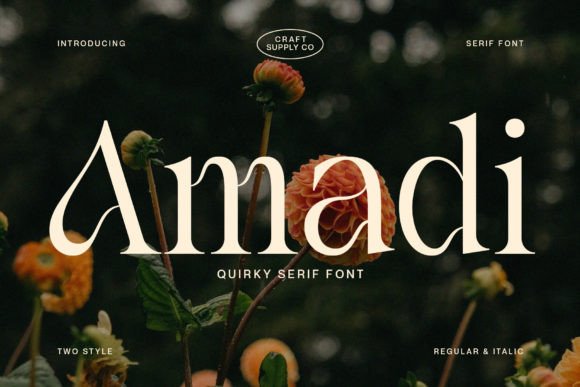
Introducing Amadi Font: The Quirky Serif Typeface That Adds a Touch of Whimsy to Your Designs
In the world of typography, fonts play a crucial role in conveying the tone and personality of a design. With so many typefaces to choose from, it can be challenging to find one that stands out from the crowd. However, if you’re looking for a font that adds a dash of whimsy and charm to your designs, look no further than Amadi Font. In this article, we’ll explore the unique features of Amadi – Quirky Serif Font and why it’s the perfect choice for projects that aim to make a statement with a touch of quirkiness.
The Unique Characteristics of Amadi Font
Amadi Font is a delightful typeface that dances to its own beat, infusing a dash of whimsy and charm into your designs. With its quirky serifs and playful letterforms, Amadi takes the traditional serif style and gives it a whimsical twist. The font’s irregular flows and unique character shapes inject a sense of fun and individuality into your designs, making it an excellent choice for projects that want to break free from convention and embrace a playful, quirky spirit.
One of the standout features of Amadi Font is its quirky serifs. Unlike traditional serif fonts, Amadi’s serifs are irregular and playful, adding a touch of whimsy to your designs. The font’s letterforms are also unique, with a charm that sets them apart from other typefaces. Whether you’re working on invitations, posters, or any creative endeavor, Amadi adds a distinctive and charismatic touch that is sure to capture the attention of your audience.
The Benefits of Using Amadi Font in Your Designs
So, why choose Amadi Font for your designs? Here are just a few benefits of using this quirky serif typeface:
- Stand out from the crowd: With its unique and playful design, Amadi Font is sure to make your designs stand out from the crowd. Whether you’re working on a project for a client or creating something for personal use, Amadi adds a touch of whimsy and charm that sets it apart from other typefaces.
- Add a touch of personality: Amadi Font is a typeface that wears its heart on its sleeve. It’s playful, quirky, and fun, making it the perfect choice for projects that want to convey a sense of personality and individuality.
- Perfect for creative projects: Whether you’re working on invitations, posters, or any creative endeavor, Amadi Font is the perfect choice. Its unique design and playful charm make it an excellent choice for projects that want to break free from convention and embrace a playful, quirky spirit.
How to Use Amadi Font in Your Designs
Using Amadi Font in your designs is easy. Here are a few tips to get you started:
- Pair it with a neutral font: To really make Amadi Font shine, pair it with a neutral font that complements its playful design. This will help to balance out the look and feel of your design.
- Use it sparingly: While Amadi Font is a beautiful typeface, it’s best used sparingly. Use it for headings or titles, and pair it with a more traditional font for body copy.
- Experiment with colors: Amadi Font looks great in a variety of colors. Experiment with different hues and shades to find the perfect look for your design.
The Design Process Behind Amadi Font
Creating a font like Amadi requires a deep understanding of typography and design. The design process behind Amadi Font involved a lot of research and experimentation. The goal was to create a typeface that was both playful and elegant, with a unique charm that sets it apart from other fonts.
The design team behind Amadi Font spent countless hours perfecting the font’s quirky serifs and playful letterforms. They experimented with different shapes and sizes, testing the font’s legibility and aesthetic appeal. The result is a typeface that is both beautiful and functional, with a unique personality that shines through in every letter.
In conclusion, Amadi Font is a quirky serif typeface that adds a touch of whimsy and charm to your designs. With its unique features, playful design, and charismatic personality, Amadi is the perfect choice for projects that want to stand out and make a statement. Whether you’re working on invitations, posters, or any creative endeavor, Amadi Font is sure to bring a smile to your audience’s face. So why settle for a boring, traditional font when you can add a dash of quirkiness to your designs with Amadi Font?
- What is Amadi Font? Amadi Font is a quirky serif typeface that adds a touch of whimsy and charm to your designs.
- What makes Amadi Font unique? Amadi Font’s unique features include its quirky serifs, playful letterforms, and irregular flows.
- What is Amadi Font best used for? Amadi Font is perfect for projects that want to stand out and make a statement, such as invitations, posters, and creative endeavors.